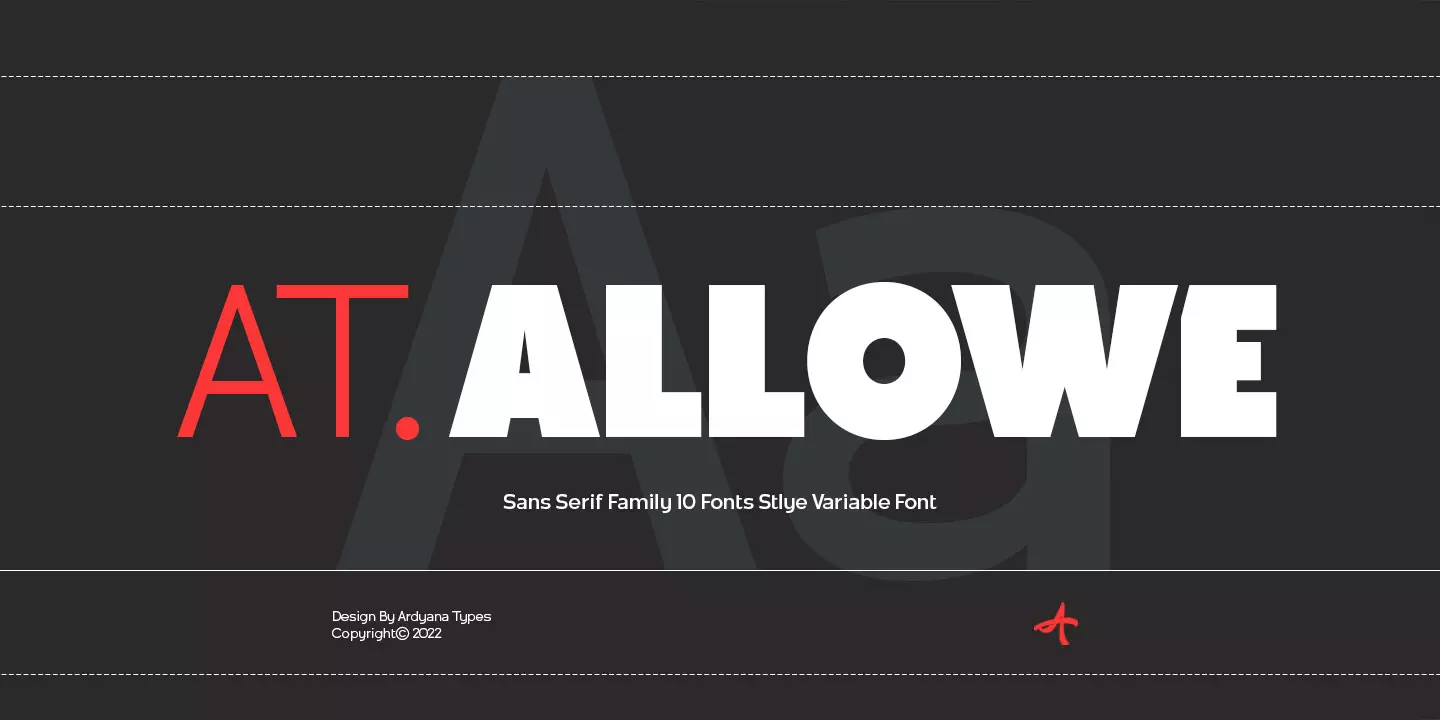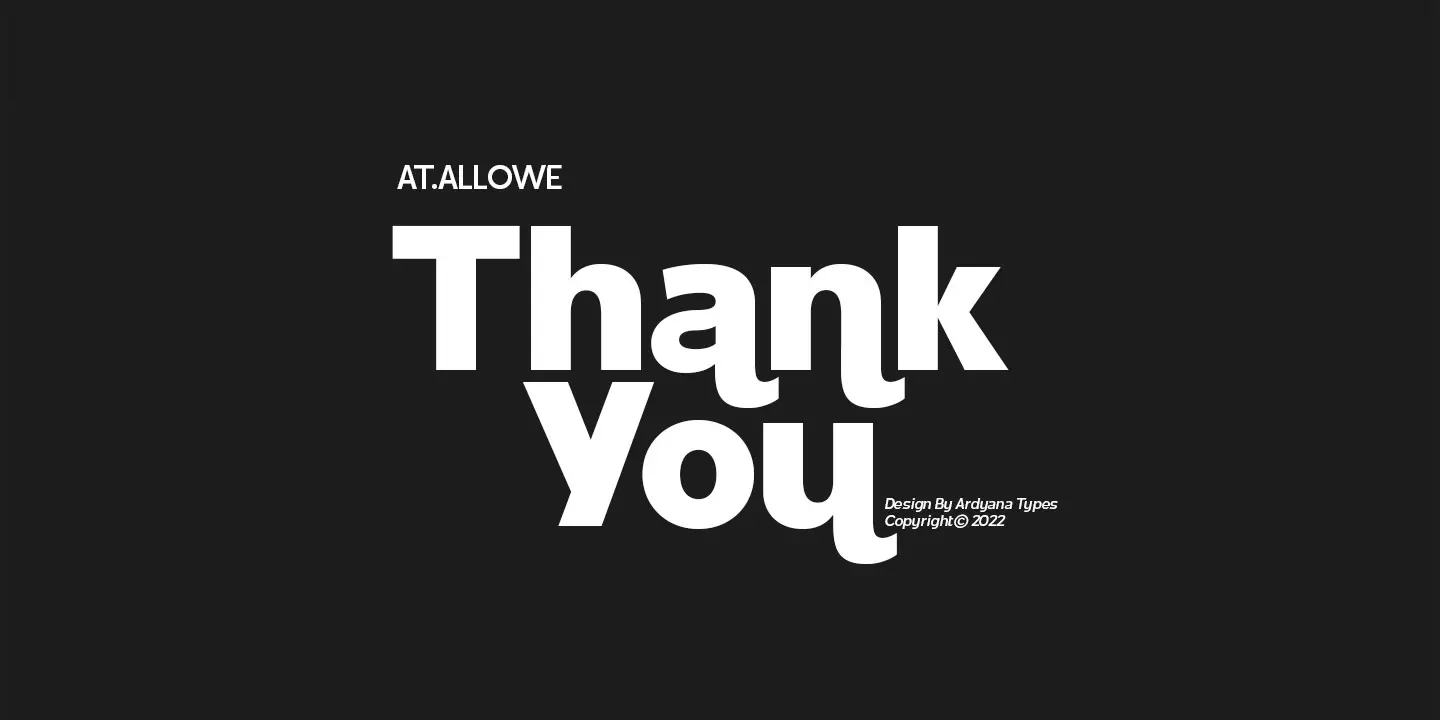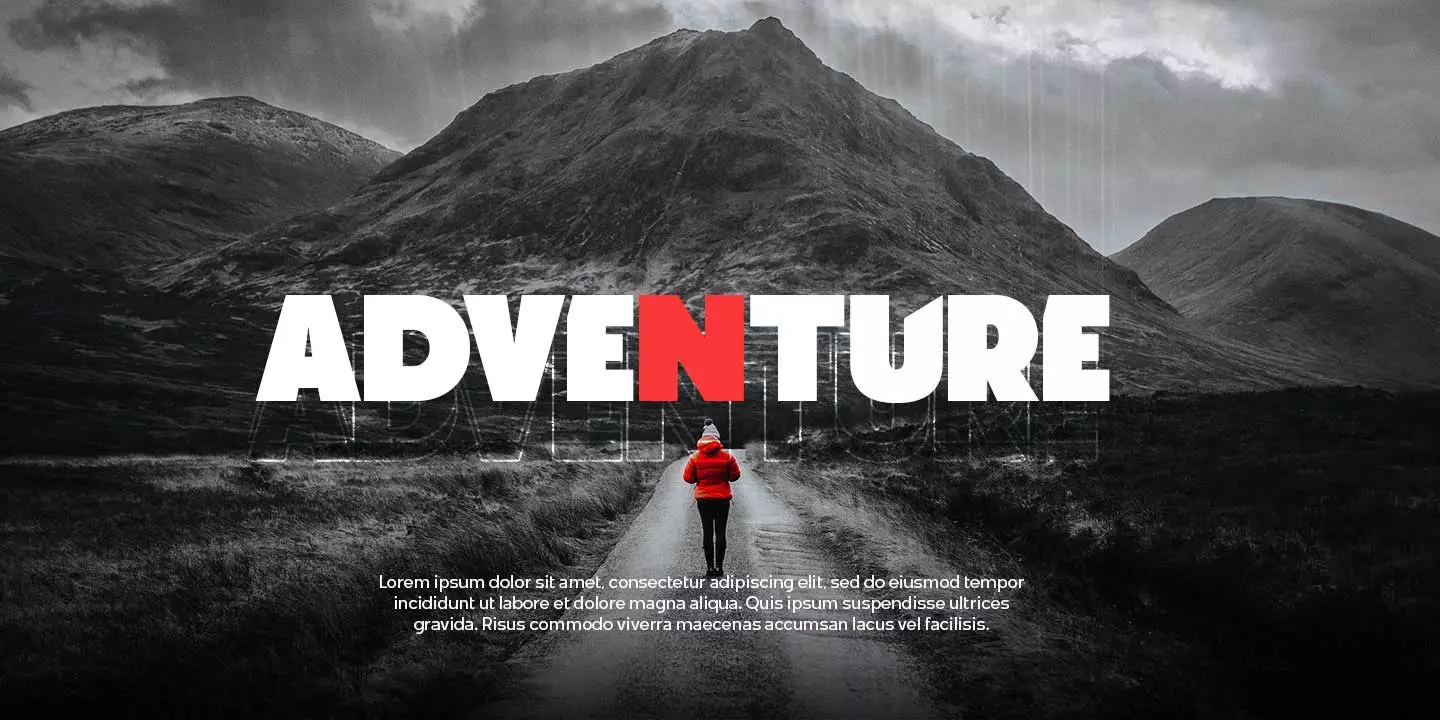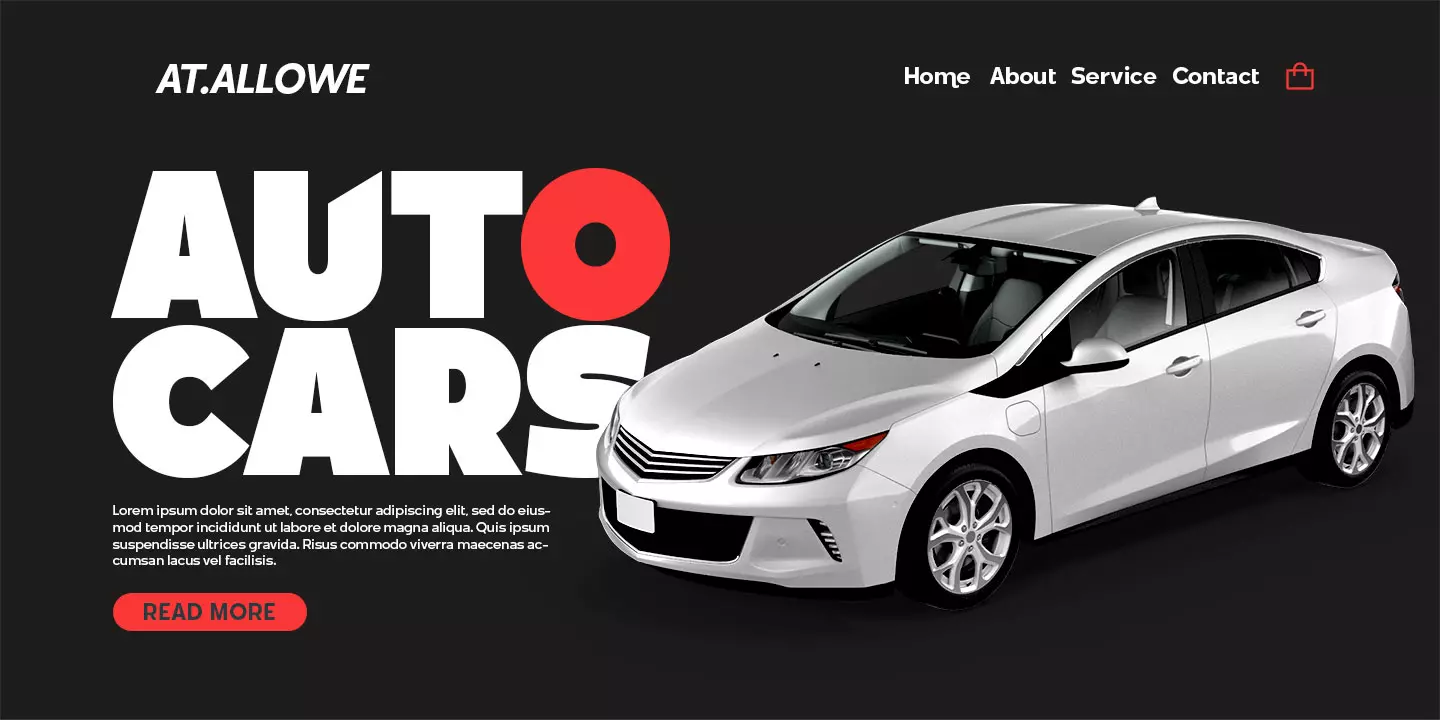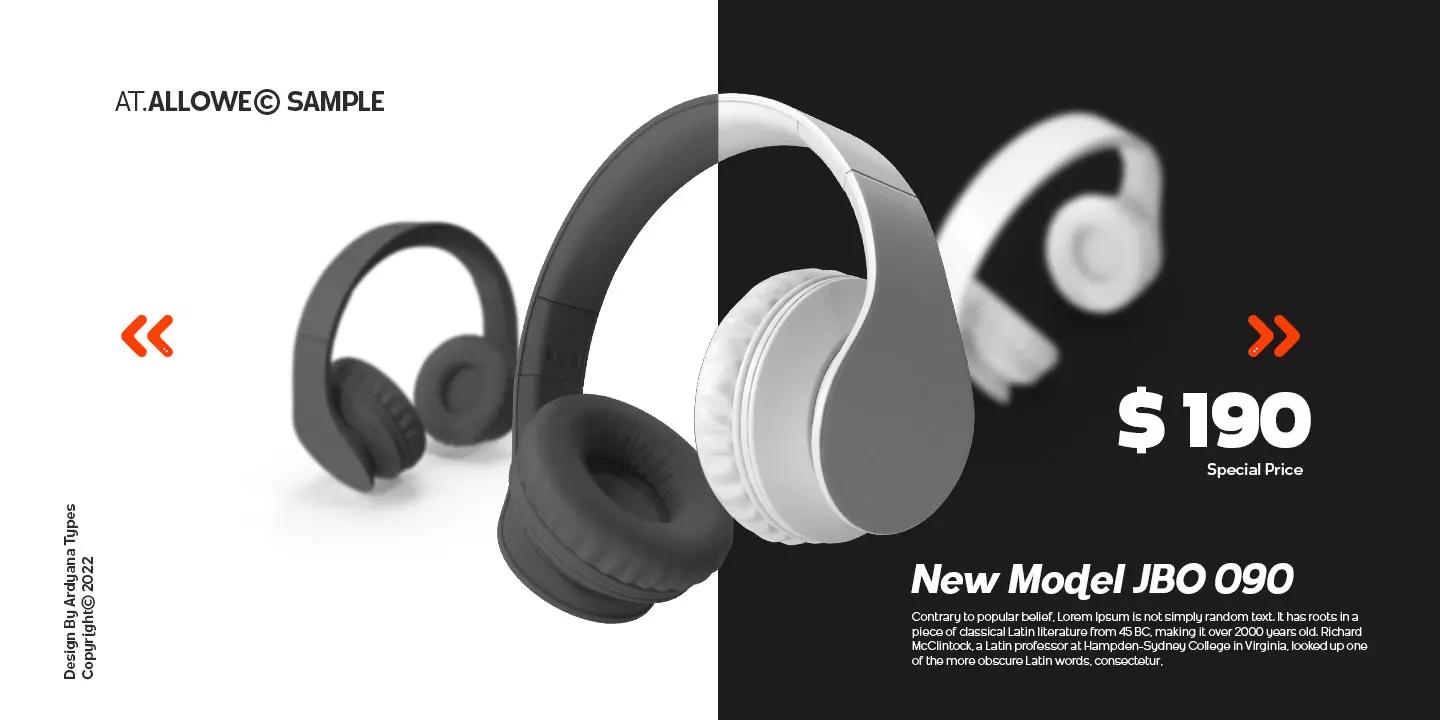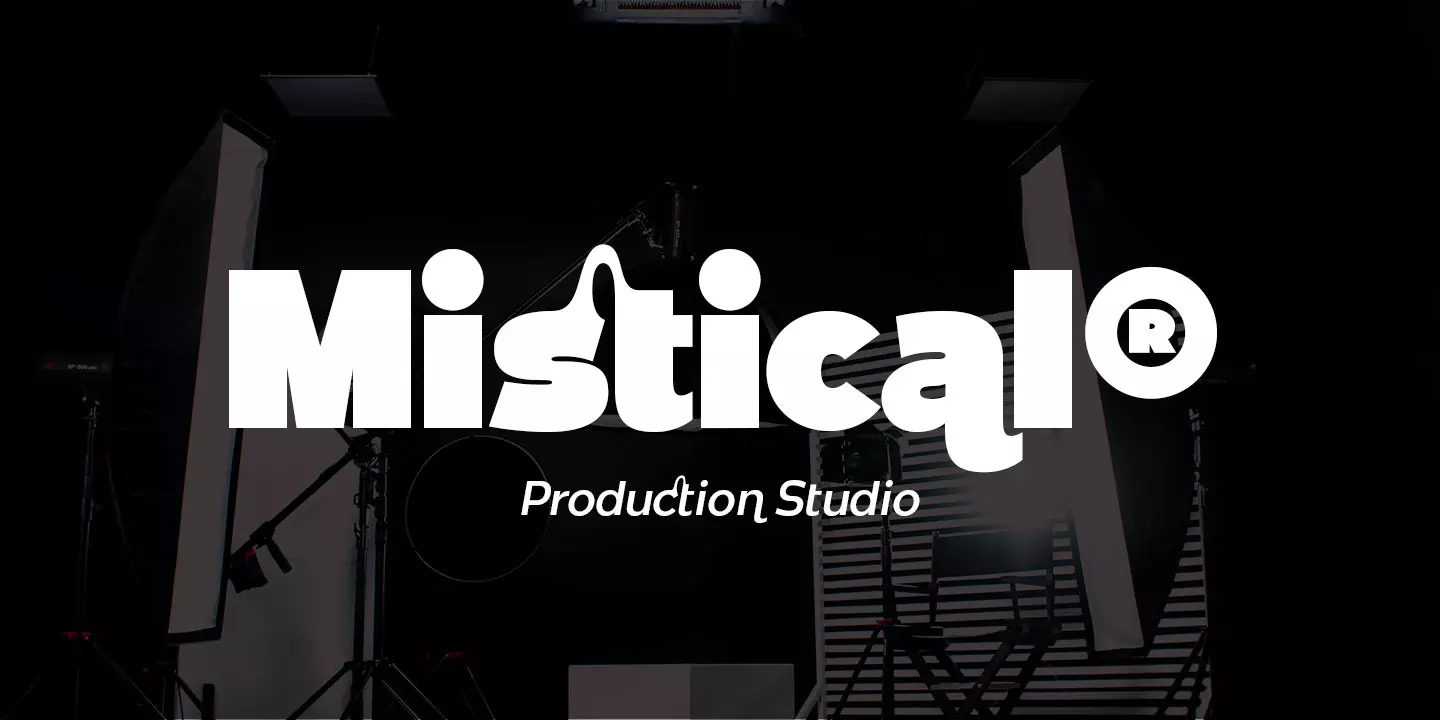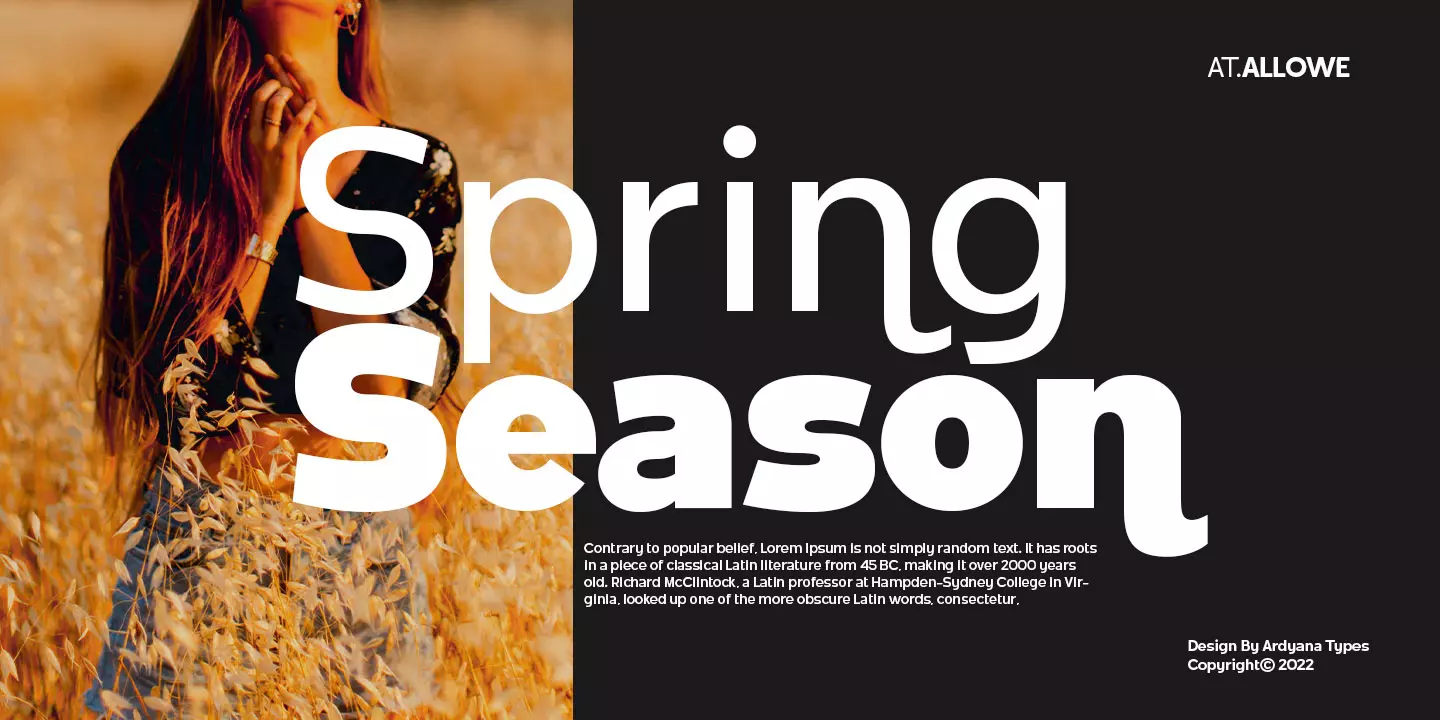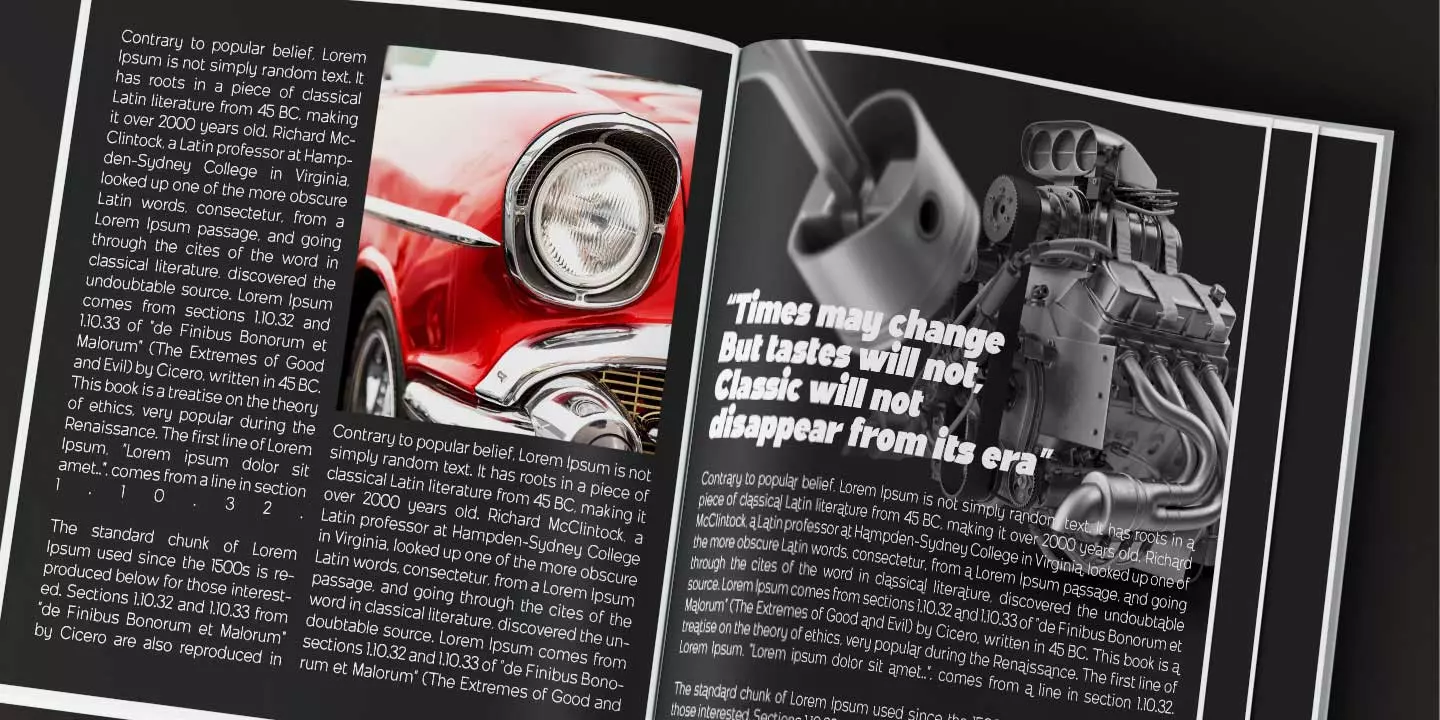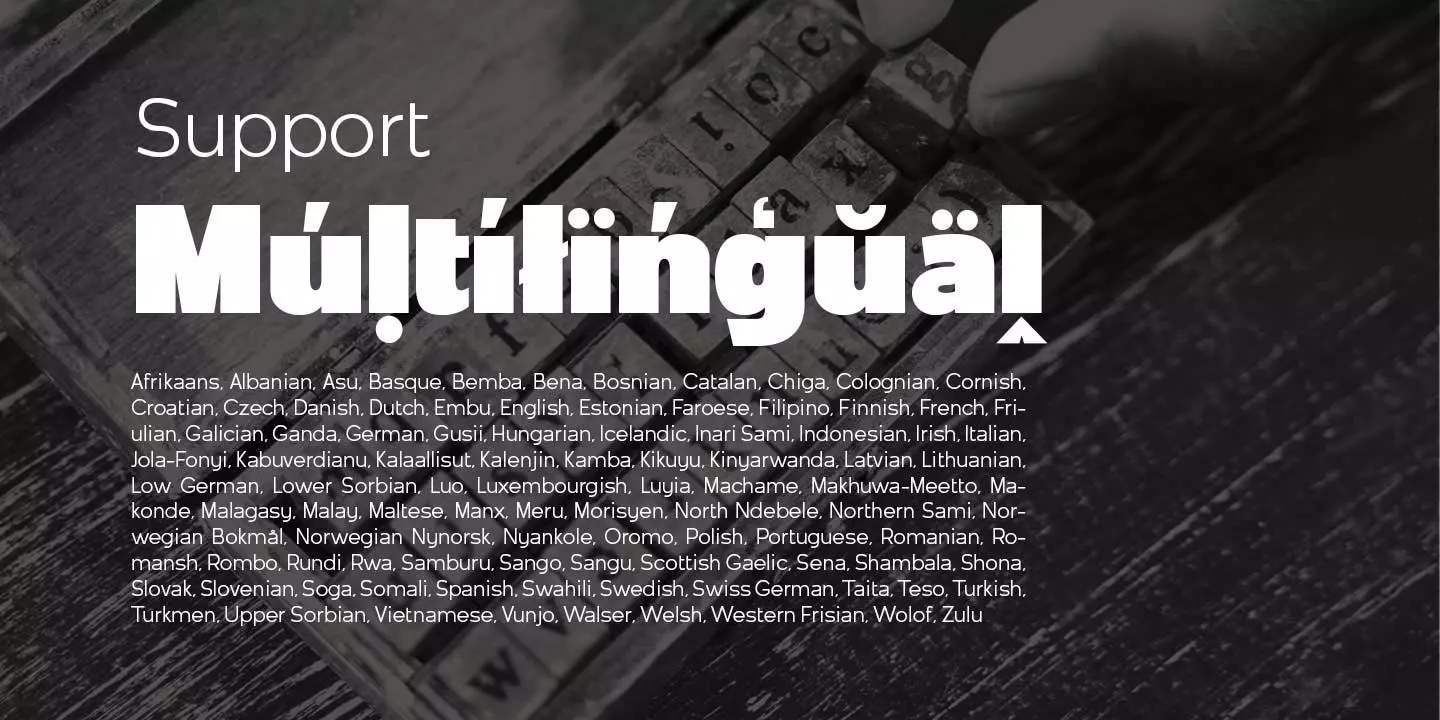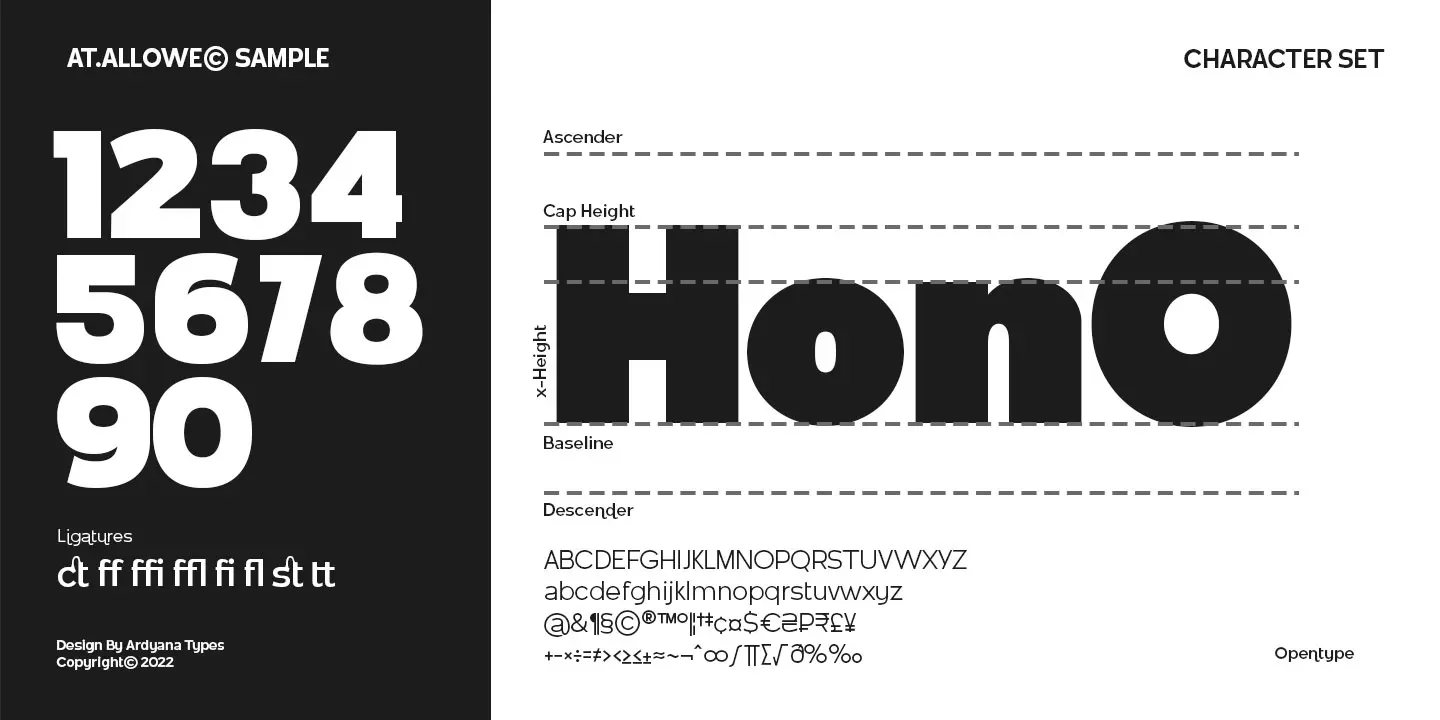
At. Allowe - Sans Serif Family
AT Allowe comes with a geometric sans serif style and a modern and elegant sans serif tagline. This font comes in eight thickness levels, from thin to black to suit your needs. AT Allowe is also equipped with the latest professional characteristics that can present an elegant and attractive identity for your company or project for business purposes. It goes well with modern serifs and scripts depicted or stands firm as a title and brand representative for an elegant look.
AT Allowe also comes with multiple languages, making it easy to use for any country and language use. It also comes with alternative Ligatures and styles to make your designs more attractive. AT Allowe is suitable for branding projects and various design purposes such as business cards, name tags, advertisements, posters, invitations, branding, logos, magazines, merchandise, presentations, etc